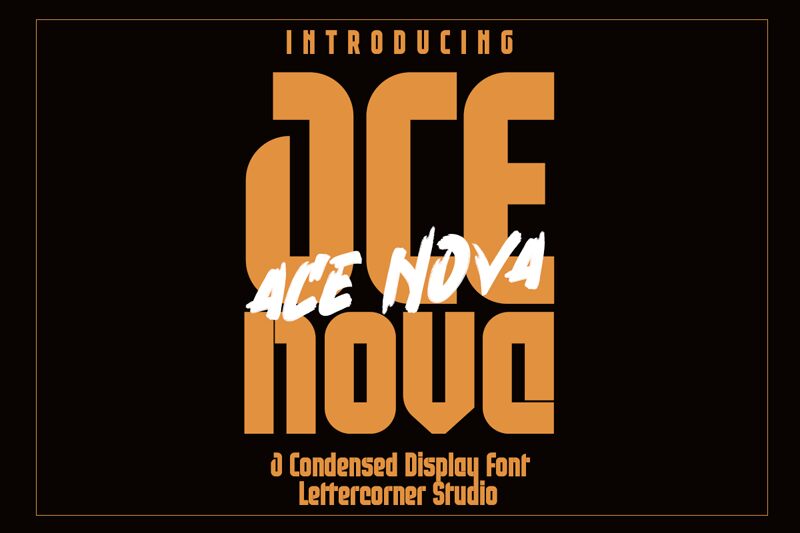
Ace Nova font family by Mocha Frappuccino is a free font for personal use modern display font with a futuristic style and approaching rounded elements. It is built from a simple geometric construction inspired by modernist influences and a minimalist design. The polished typeface automatically looks cohesive and achieves a clean and corporate look with very little effort on the designer’s part.
Ace Nova font is an excellent fit for contemporary designs, product and business branding, corporate identities, packaging, large-format prints, magazines, newspapers, websites, published books, and more. Its compact and wide-open letters make it a beautiful option for attractive posters, flyers, and billboards.